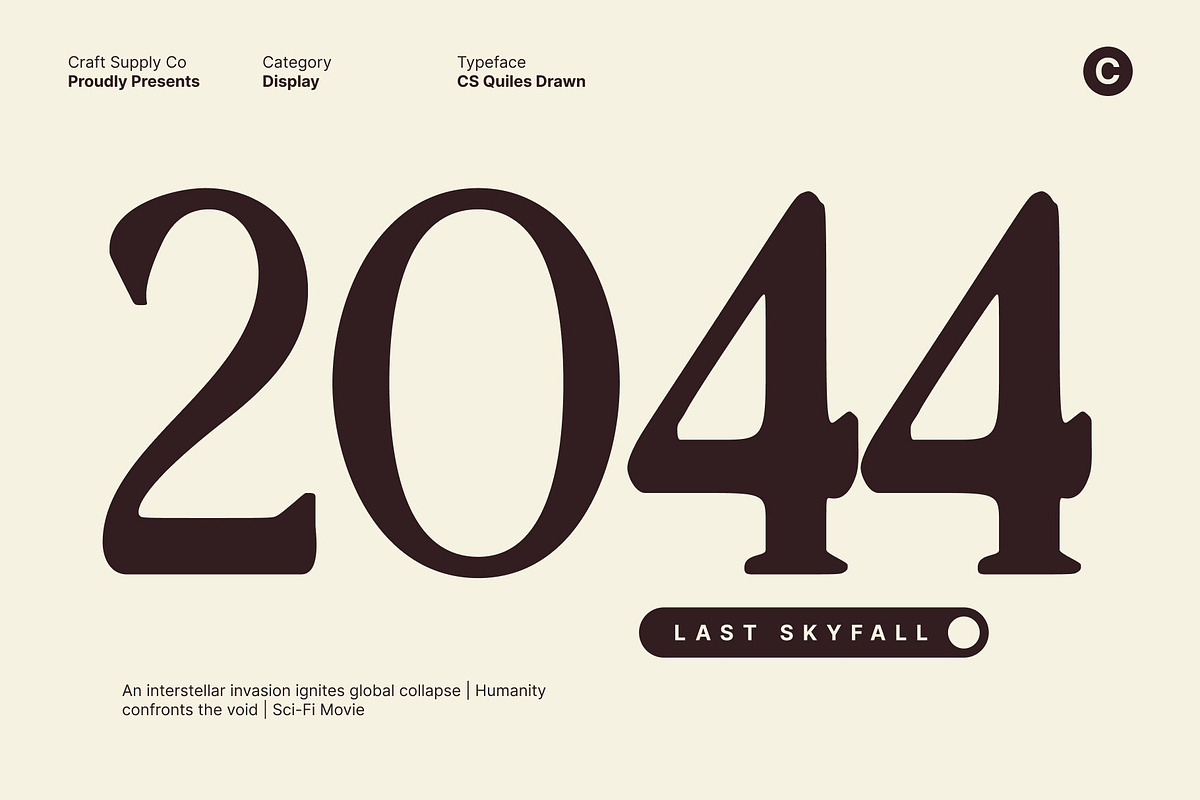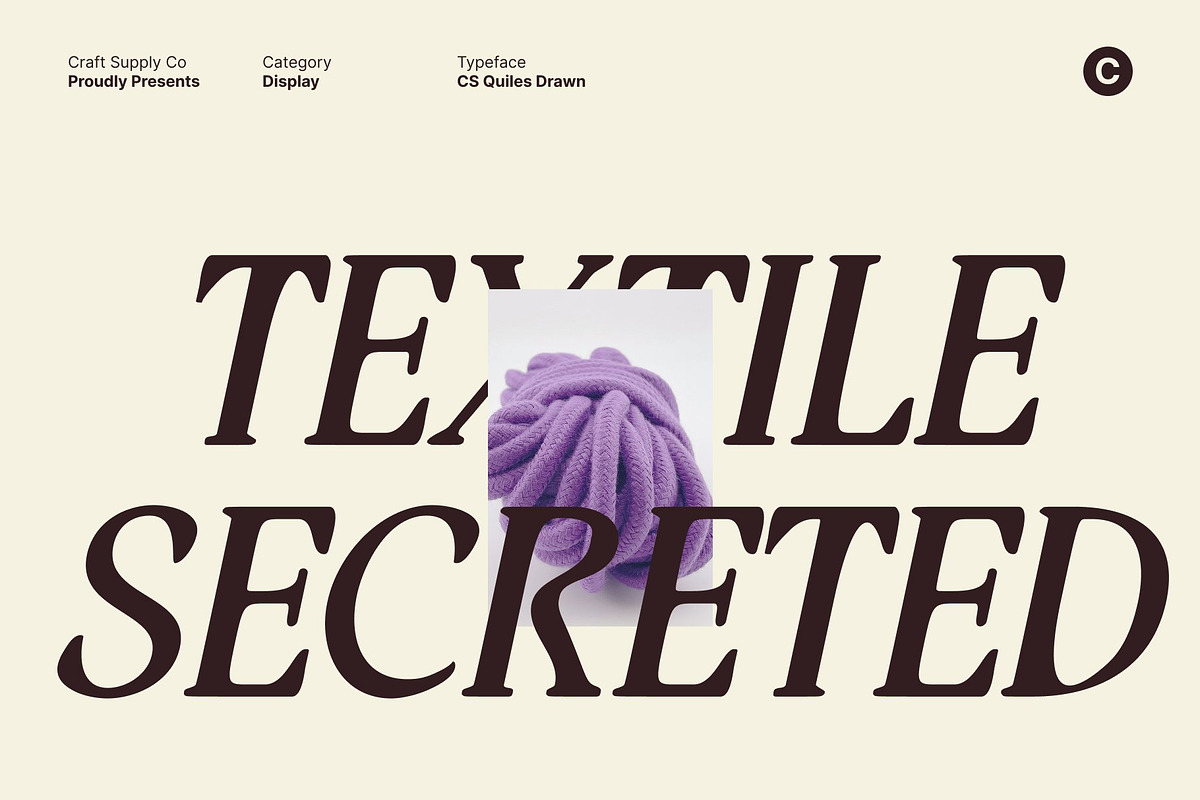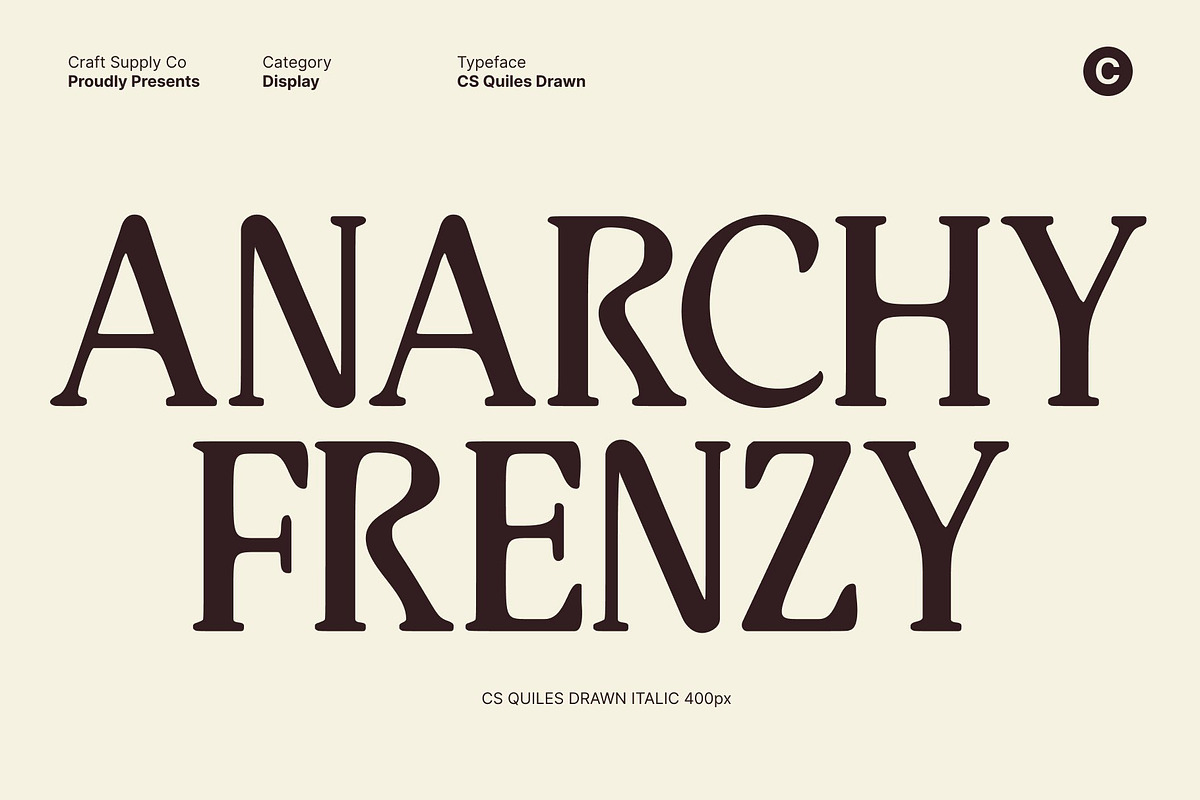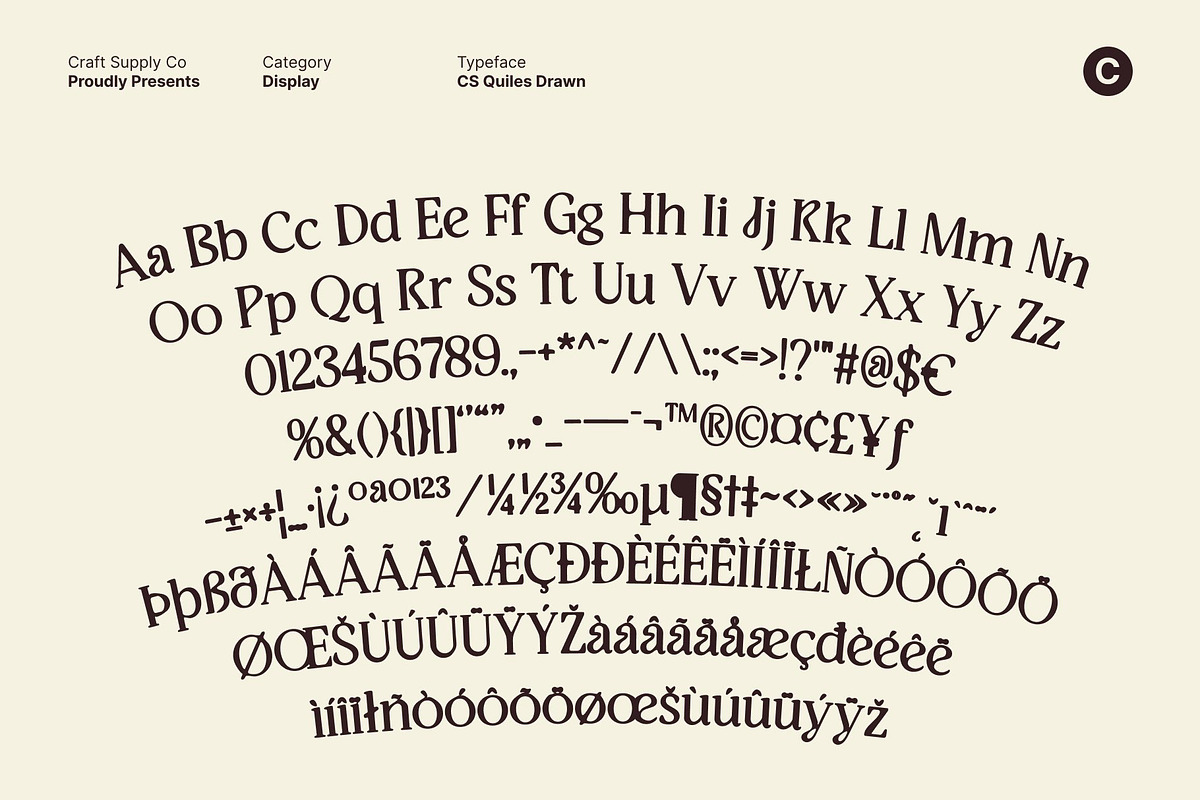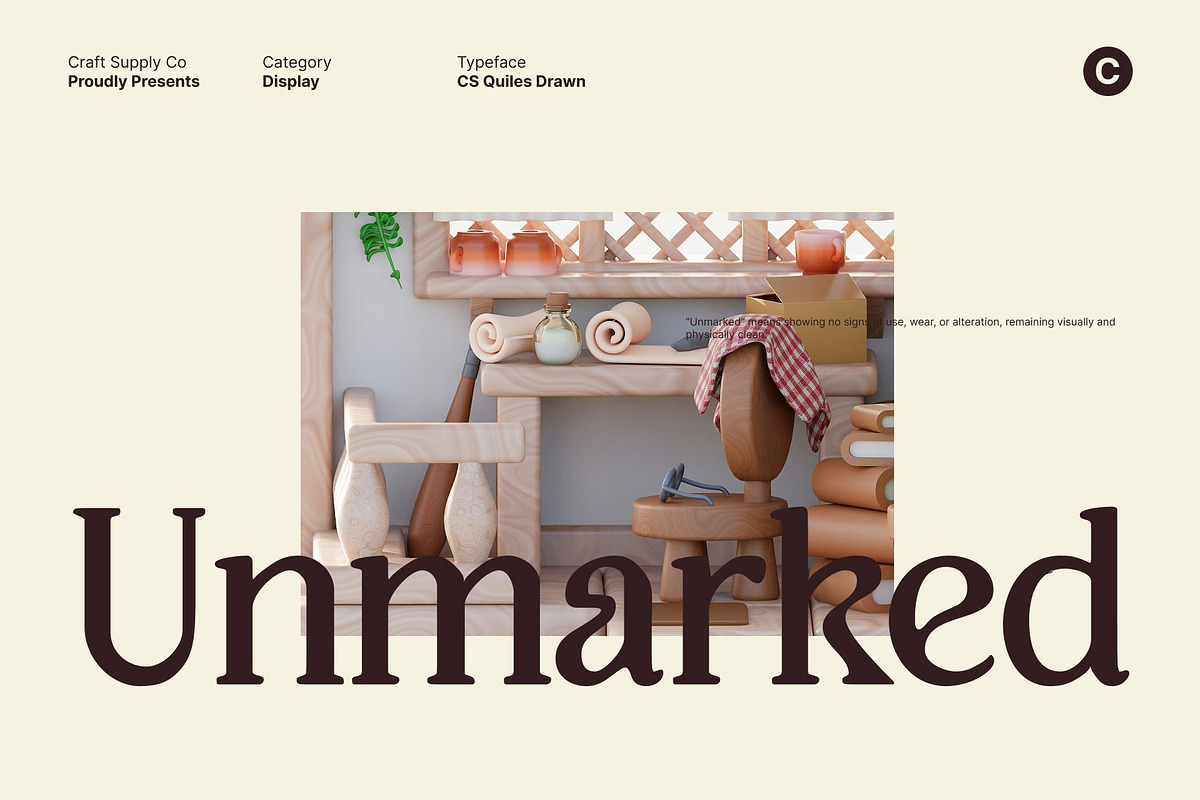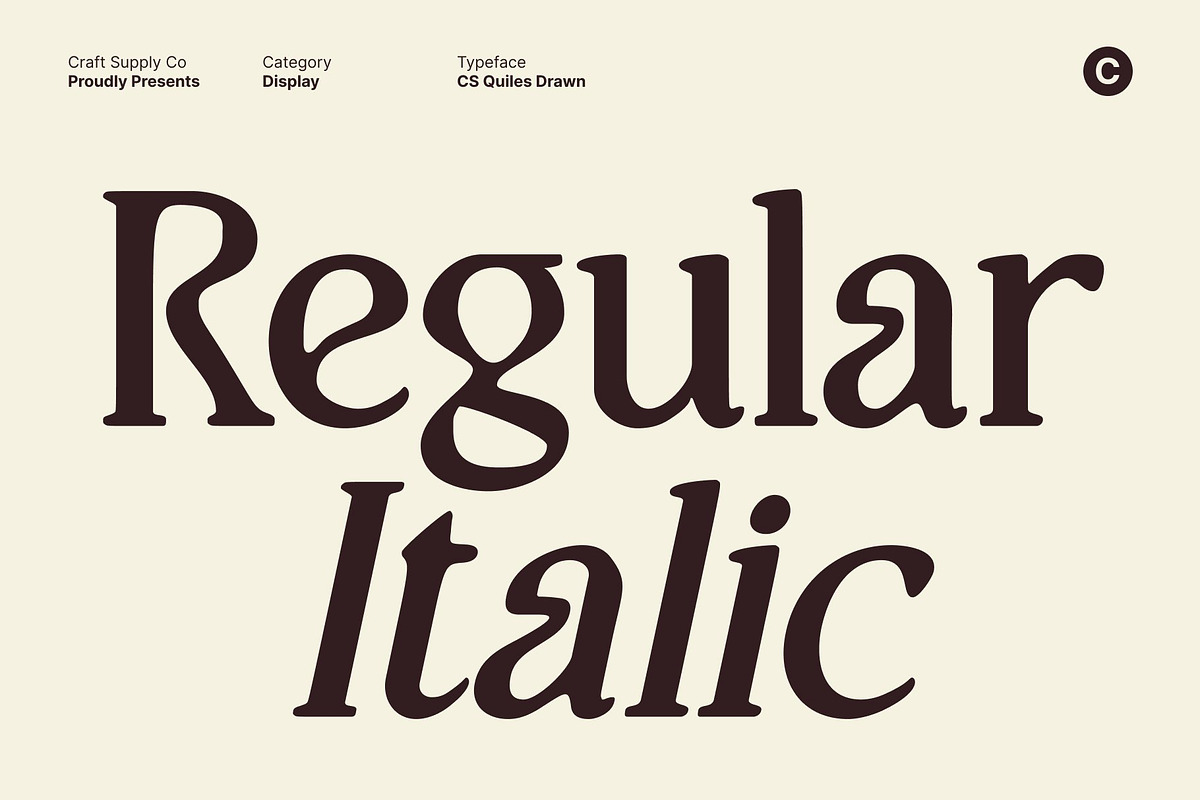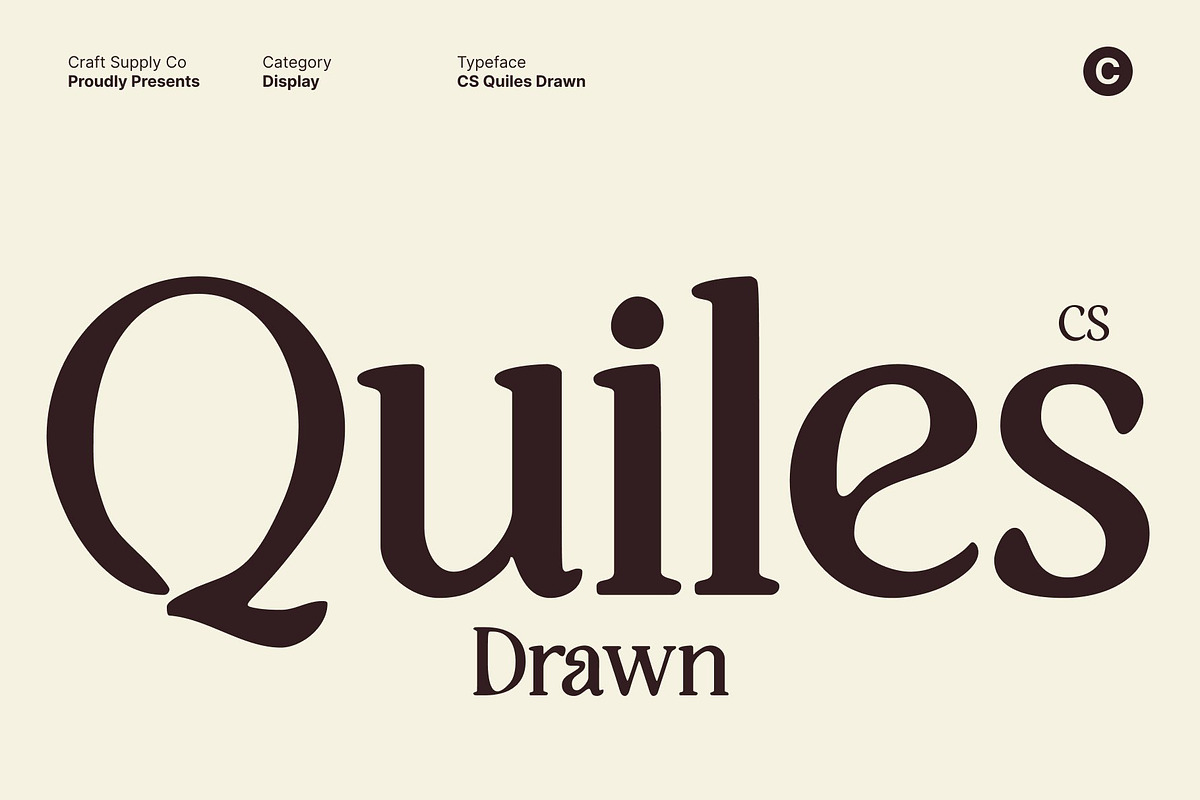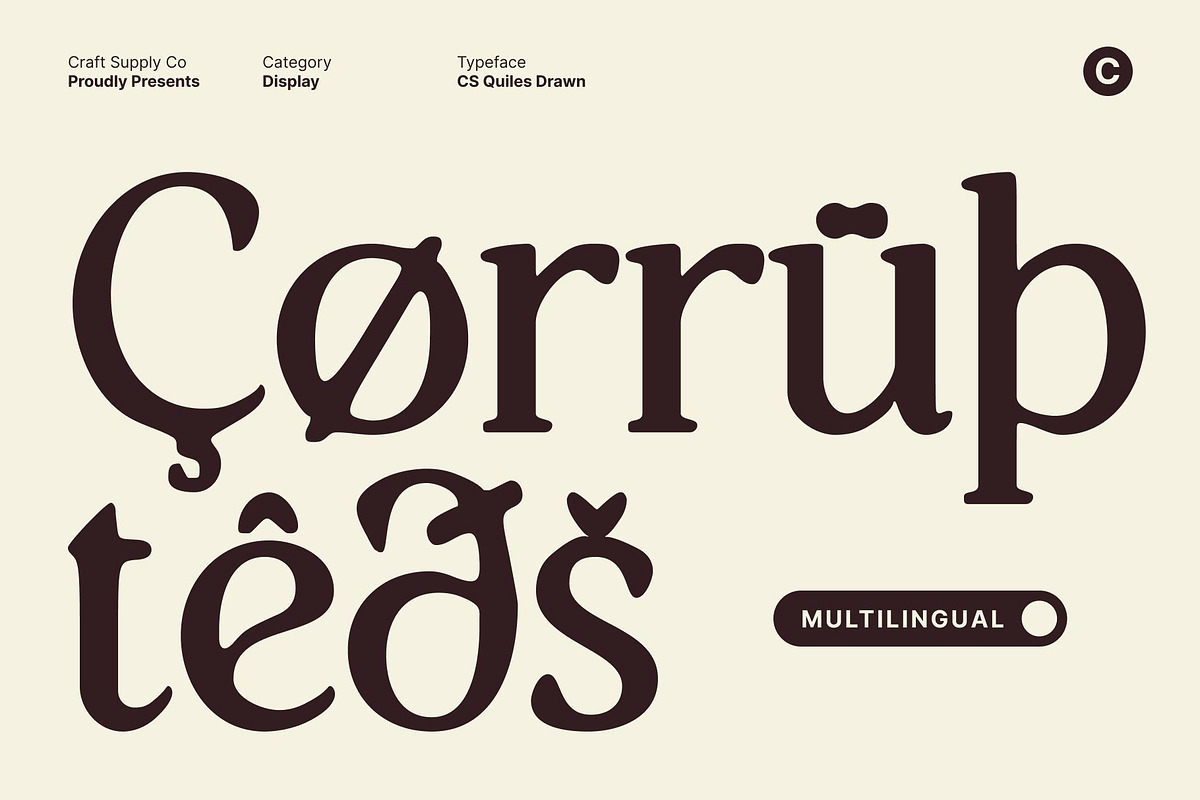
CS Quiles Drawn
CS Quiles Drawn – Chic Serif Font with Artistic Texture
Modern Serif with Chic Refinement This is a stylish and modern serif font designed with clean structure and minimal curves that create a chic, contemporary appearance. Its well-balanced proportions and refined details give the font a polished look that feels confident and sophisticated without being excessive.
Drawn Effect for Artistic Texture The drawn effect adds an artistic layer that enriches the overall character of this font. Subtle textures and organic imperfections introduce a handcrafted quality, giving the font a more expressive and human feel. This texture prevents the serif structure from feeling too rigid or formal, instead adding warmth and visual depth that enhances its creative appeal.
Minimal Curves with Contemporary Personality This font embraces minimalism through its smooth transitions and controlled serif details. The simplicity of its curves allows content to remain the focus while still delivering a distinctive typographic voice. This balance makes the font feel modern and fashionable, well suited for layouts that prioritize space, hierarchy, and refined visual storytelling.
Perfect for Editorials, Branding, and Lifestyle Design Designed for versatile use, works beautifully in editorials, branding systems, logos, packaging, and lifestyle product design. Its combination of chic serif structure and artistic texture creates a strong yet subtle identity across print and digital media.